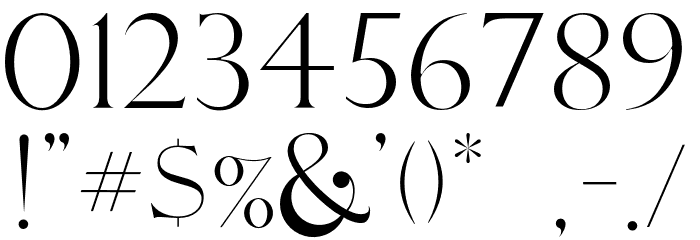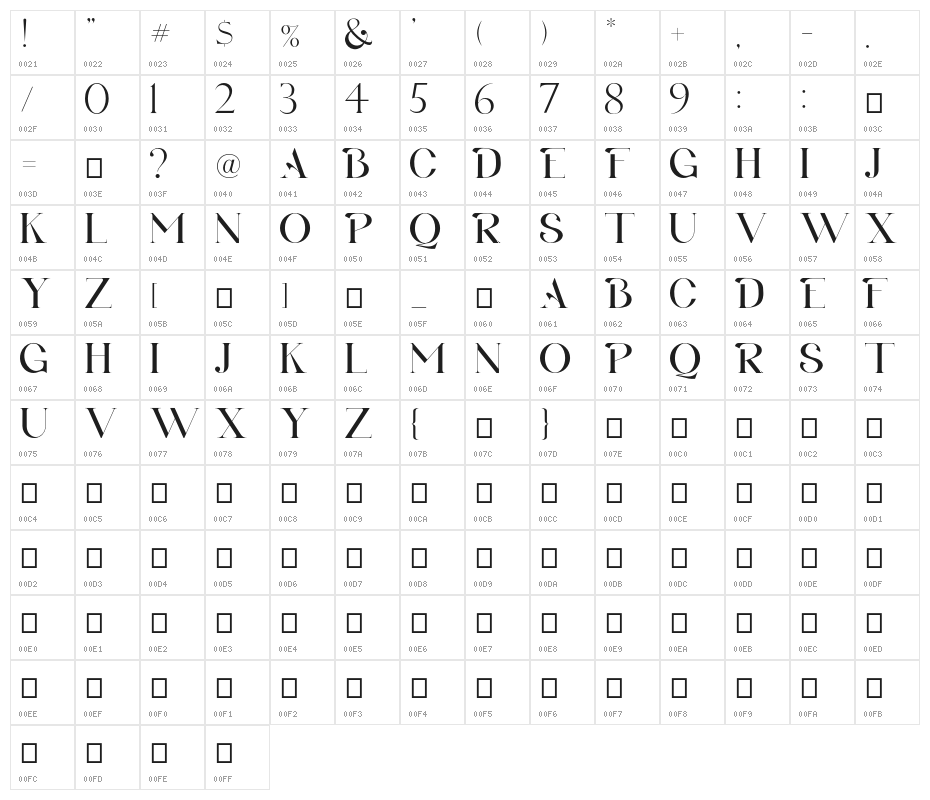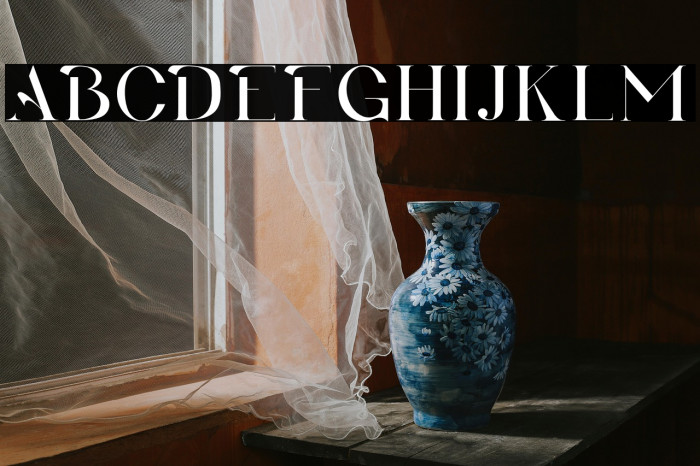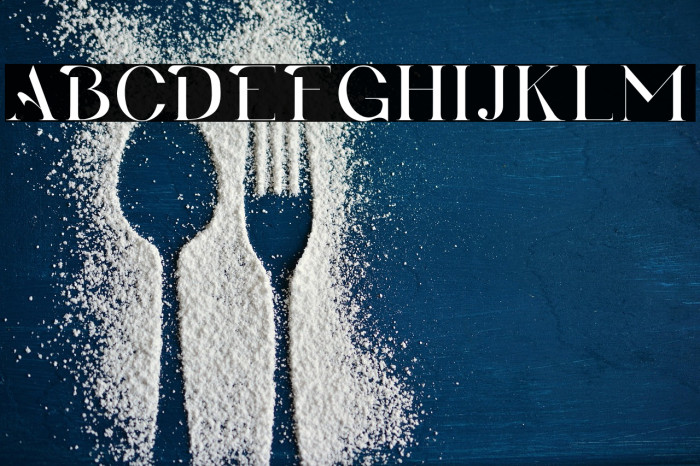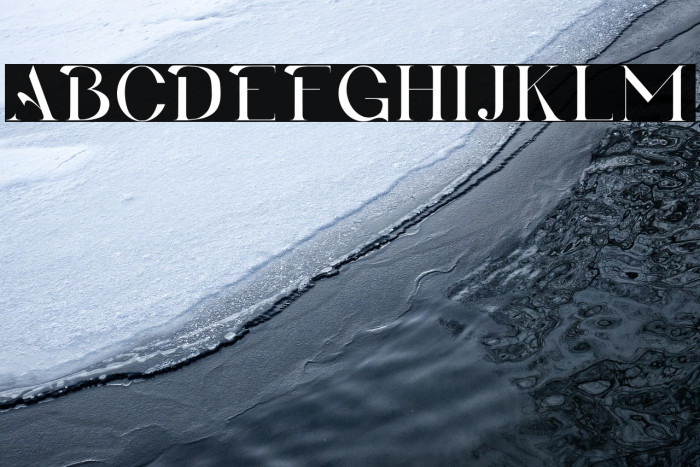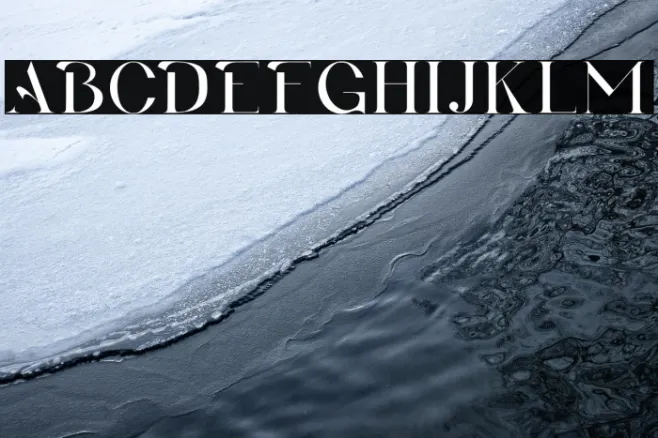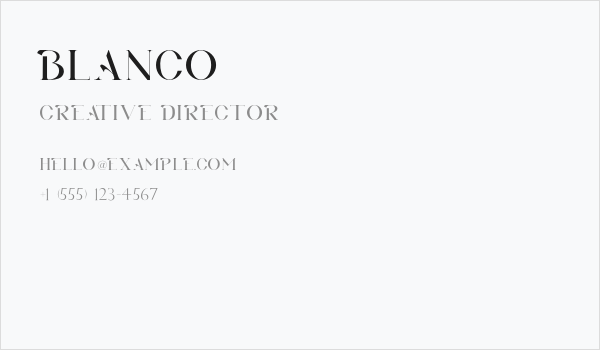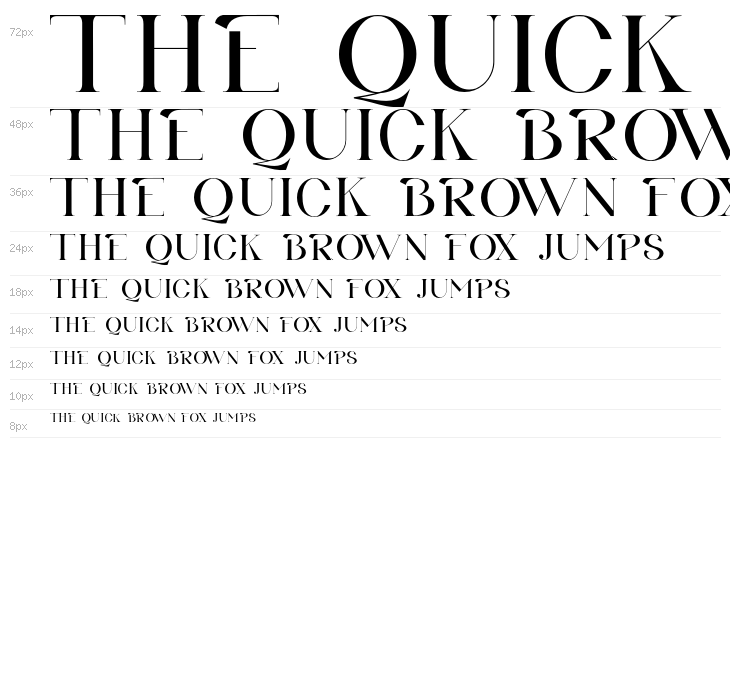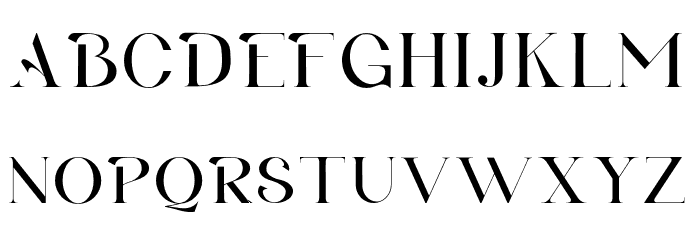
BLANCO Font
BLANCO Description
This font features a unique blend of modern and classic elements, characterized by its high contrast between thick and thin strokes. The uppercase letters exhibit a distinct elegance with sharp serifs and a slightly condensed form, giving it a sophisticated appearance. The lowercase letters maintain a consistent style, complementing the uppercase with their refined curves and balanced proportions. Numbers are designed with the same attention to detail, ensuring readability and aesthetic harmony. Special characters are crafted to match the overall style, making this font versatile for various applications.
| Proposed Projects | Ideal for luxury branding, editorial design, high-end packaging, and elegant invitations. |